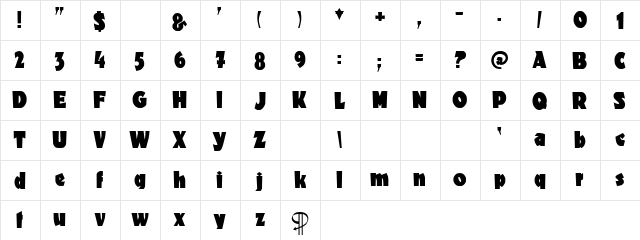
Dromon Regular
Design Context for Dromon Typeface
Dromon is a composed and adaptable typeface that performs quietly and consistently across a wide range of design contexts.